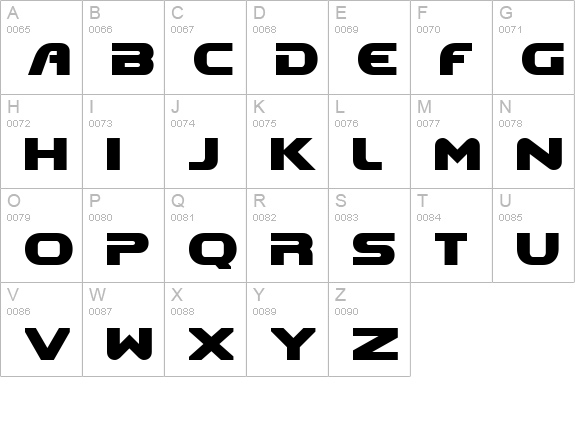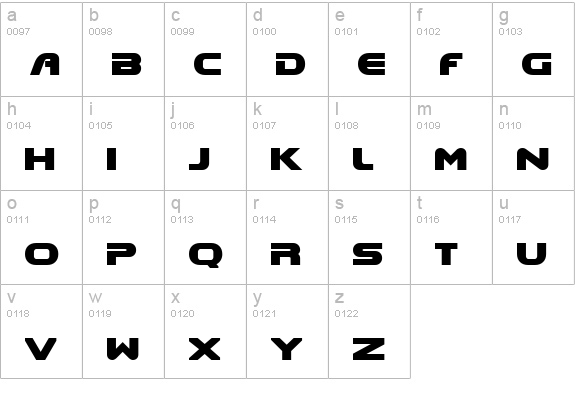
DooM Font Details
The DooM font is a bold and striking typeface that exudes a sense of power and intensity. Its angular and sharp design gives it a commanding presence, making it perfect for creating eye-catching headlines and posters. The distinctive letterforms of the DooM font are reminiscent of a futuristic, sci-fi aesthetic, making it a popular choice for gaming-related projects and other creative endeavors. What sets the DooM font apart is that it is not only visually impactful but also freely available for download at FontsMarket.com. This means that you can easily access and use this dynamic typeface in your design projects without any cost, adding an extra layer of convenience and accessibility to your creative toolkit. Whether you're looking to make a bold statement or add a touch of edginess to your designs, the DooM font is sure to leave a lasting impression.